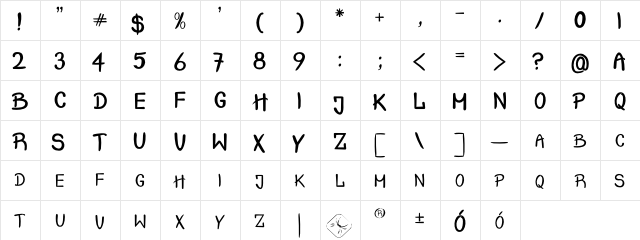
Crash Test Regular
Design Context for Crash Test Typeface
Crash Test is a composed and adaptable typeface that performs quietly and consistently across a wide range of design contexts.
Pro Tip: Pair Crash Test with a font of contrasting weight or personality to build a more expressive typographic hierarchy.